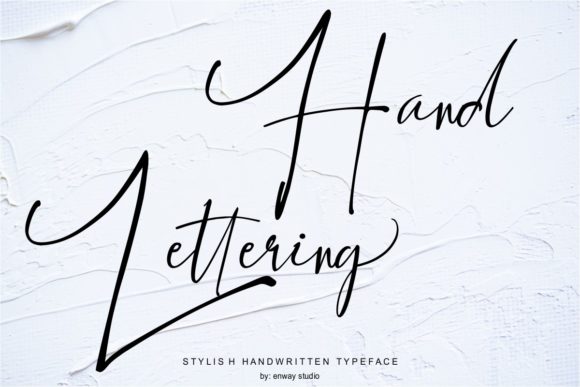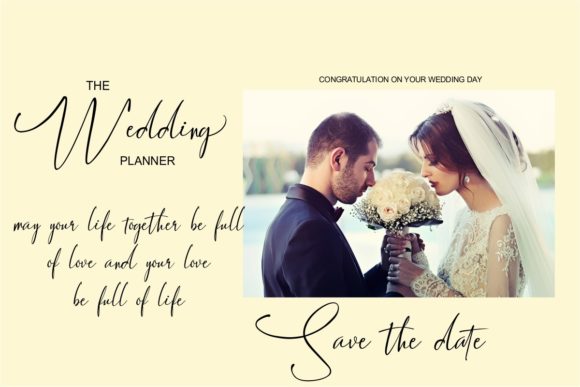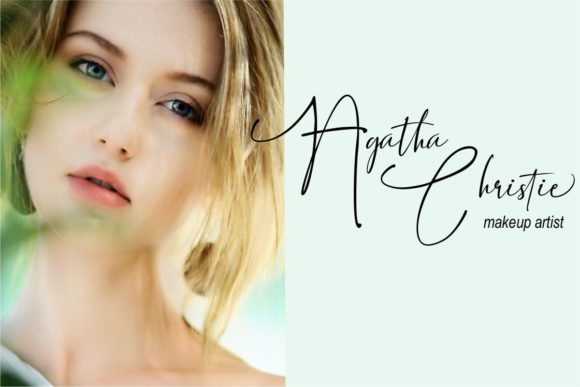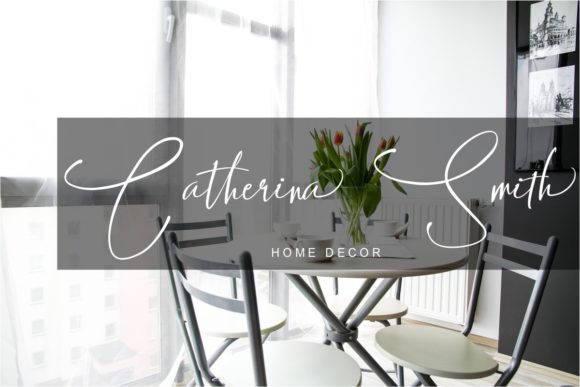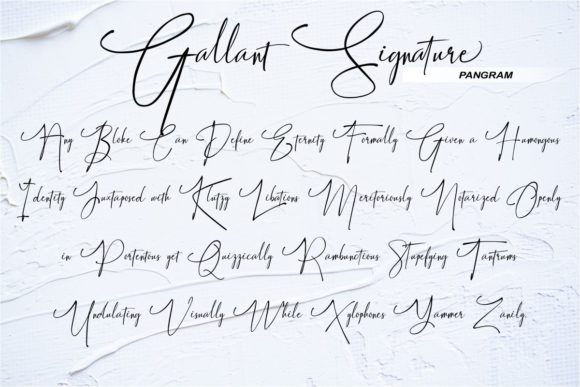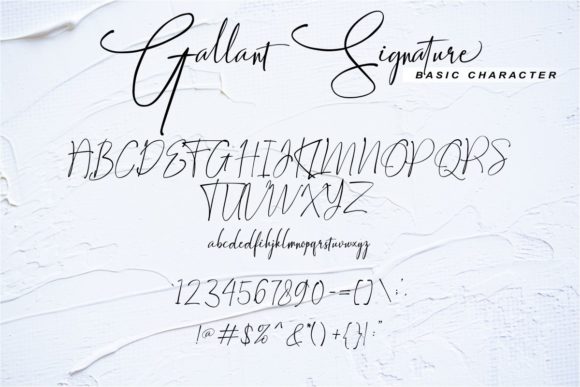
Gallant Signature Font: Elevate Your Designs with Elegance
In the world of typography, a well-crafted font can make all the difference in transforming a design from ordinary to extraordinary. For designers and crafters seeking to add a touch of sophistication and elegance to their projects, the Gallant Signature Font is an exceptional choice. This beautiful, flowing handwritten font is designed to bring a sense of luxury and refinement to any design, making it perfect for a wide range of creative endeavors.
The Essence of Gallant Signature Font
Gallant Signature Font is characterized by its elegant touch, which is evident in its fluid strokes and graceful lines. This font is not just a simple collection of characters; it’s a tool that can elevate your designs, giving them a professional and high-end feel. Whether you’re working on a branding project, crafting beautiful wedding invitations, designing stylish logos, or creating engaging social media content, Gallant Signature Font is versatile enough to meet your needs.
PUA Encoding for Ease of Use
One of the standout features of Gallant Signature Font is its PUA (Private Use Area) encoding. This means that the font includes a wide range of glyphs and swashes that can be easily accessed and used in your designs. PUA encoding allows for greater flexibility and creativity, enabling you to customize your text with intricate details and flourishes that make your work truly unique. With Gallant Signature Font, you have the freedom to experiment and create designs that reflect your personal style or brand identity.
The versatility of Gallant Signature Font makes it suitable for a multitude of projects. Here are a few ideas to get you started:
- Branding and Logos: Create a lasting impression with a logo that exudes elegance and sophistication.
- Wedding Invitations and Stationery: Add a romantic and luxurious feel to your wedding invitations, thank you cards, and other stationery.
- Social Media Graphics: Stand out on social media with beautifully designed quotes, headers, and posts.
- Packaging: Elevate your product packaging with a font that communicates luxury and quality.
- Web Design: Enhance the aesthetic appeal of your website with a font that offers both readability and style.
Why Choose Gallant Signature Font?
Choosing Gallant Signature Font for your design projects comes with several benefits:
- Elegance: It adds a touch of elegance and sophistication to your designs.
- Versatility: Suitable for a wide range of projects, from digital to print.
- Easy to Use: PUA encoding makes it easy to access and use the glyphs and swashes.
- Unique Designs: Helps you create unique and standout designs that capture attention.
Gallant Signature Font is more than just a font; it’s a design element that can transform your projects with its elegant and flowing script. Its PUA encoding, versatility, and the touch of sophistication it brings to designs make it an invaluable resource for designers and crafters. Whether you’re looking to create stunning branding, beautiful stationery, or engaging social media content, Gallant Signature Font is a perfect choice. Elevate your designs with the elegance and refinement that Gallant Signature Font has to offer.